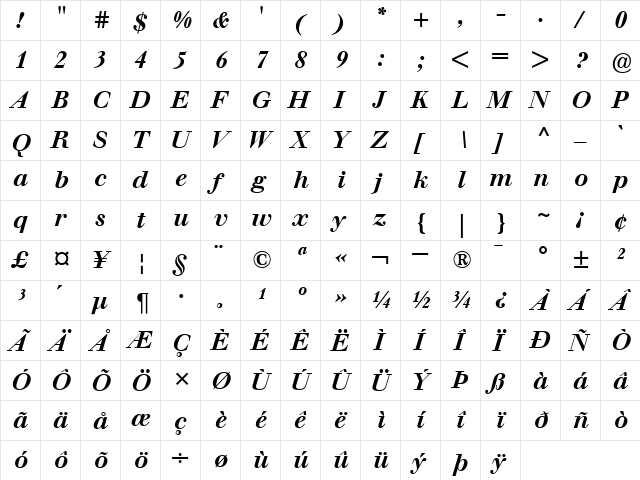
BertholdWalbaumMedium-Book BookItalic
Design Context for BertholdWalbaumMedium-Book Typeface
BertholdWalbaumMedium-Book takes a measured approach to typography — its balanced proportions and neutral character make it a reliable workhorse for both digital and print work. The dynamic lean of this cut emphasises speed and emphasis in any layout.